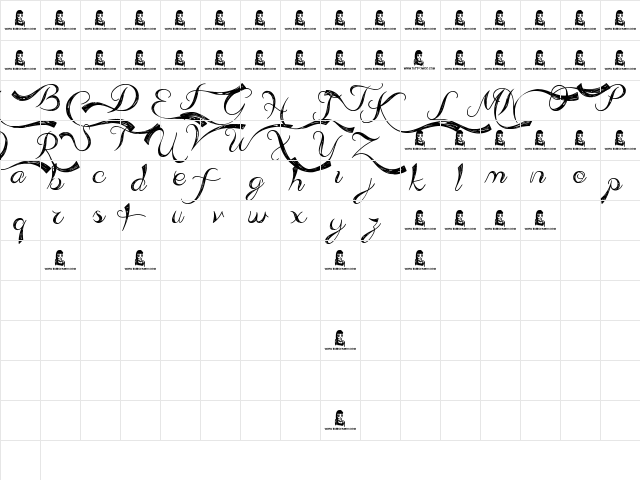
Admiration Pains Regular
Design Context for Admiration Pains Typeface
Admiration Pains is a composed and adaptable typeface that performs quietly and consistently across a wide range of design contexts.